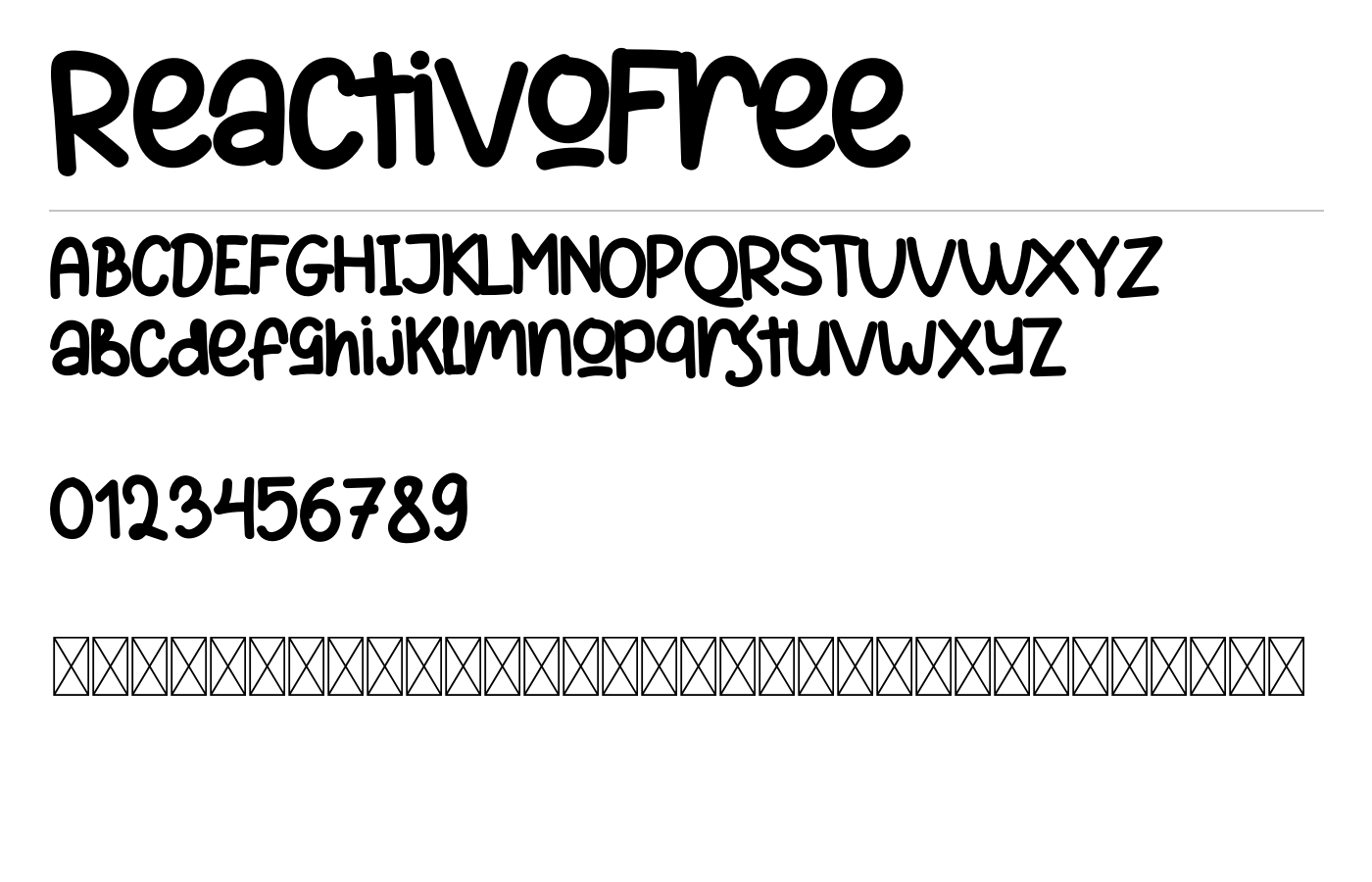
Reactivo Fun Display is a playful and informal sans serif font with a hand-drawn, casual feel. It features rounded, irregular letterforms with a medium weight and generous x-height, making it approachable and easy to read. Ideal for creative projects, children’s materials, and fun branding, this font adds a lively and friendly touch to headlines, logos, and invitations.
Reactivo Fun Display Font
About Reactivo Fun Display Font